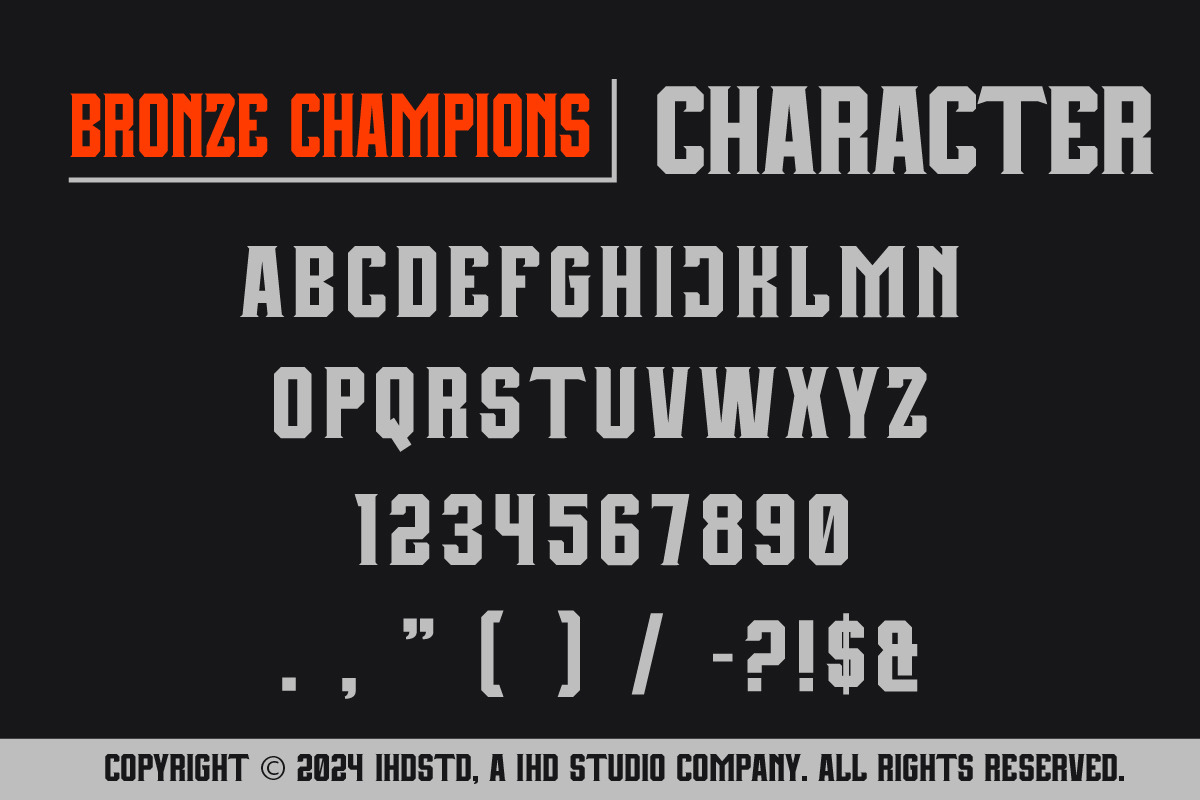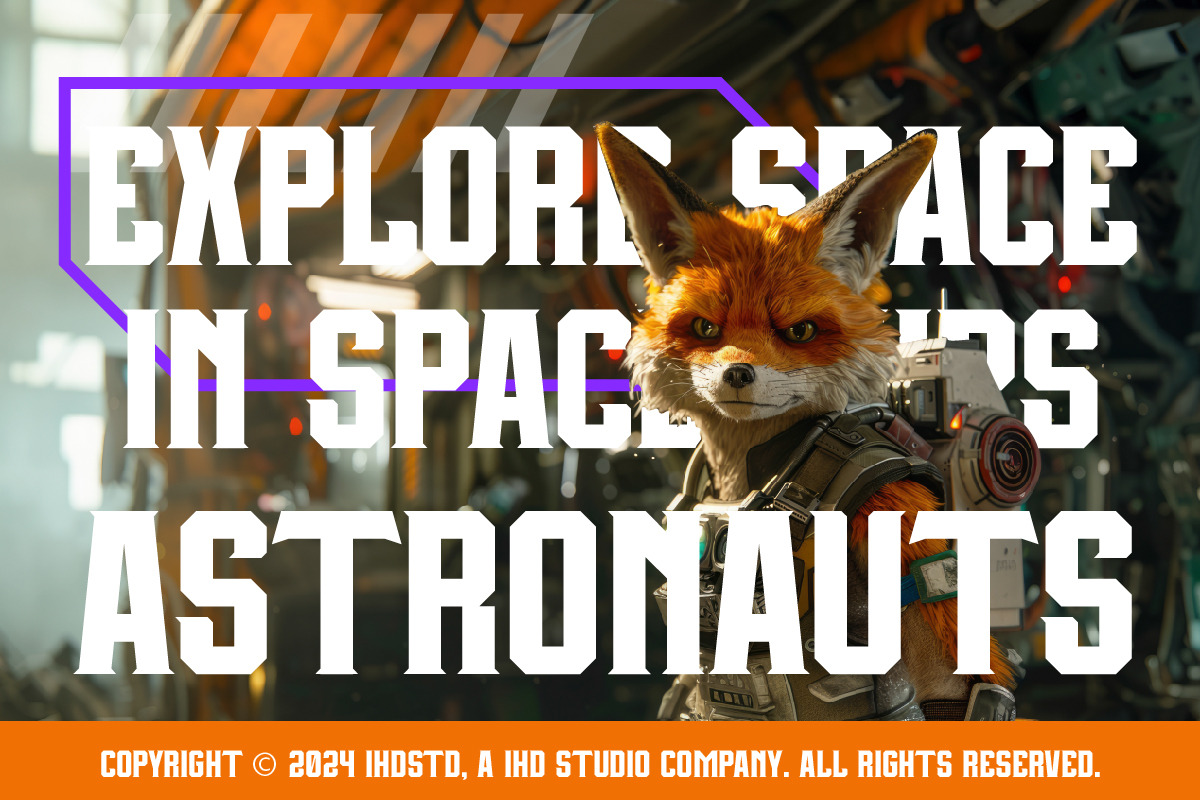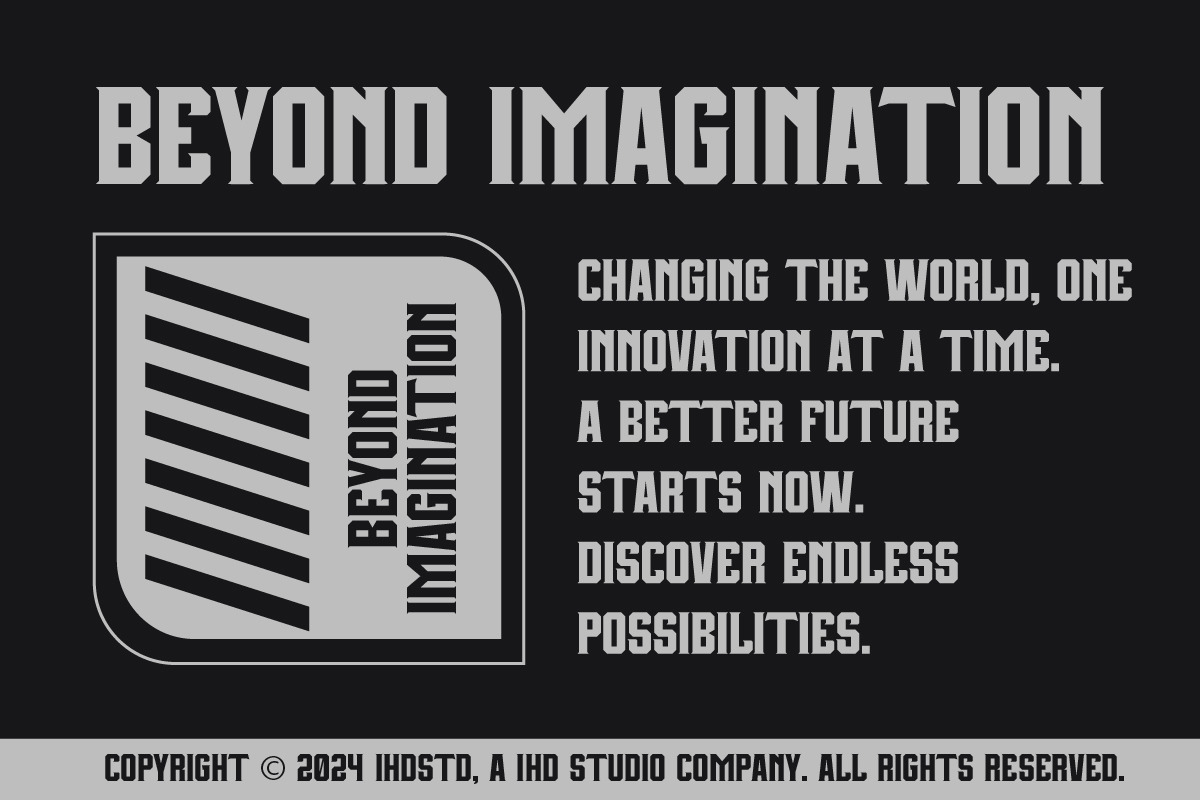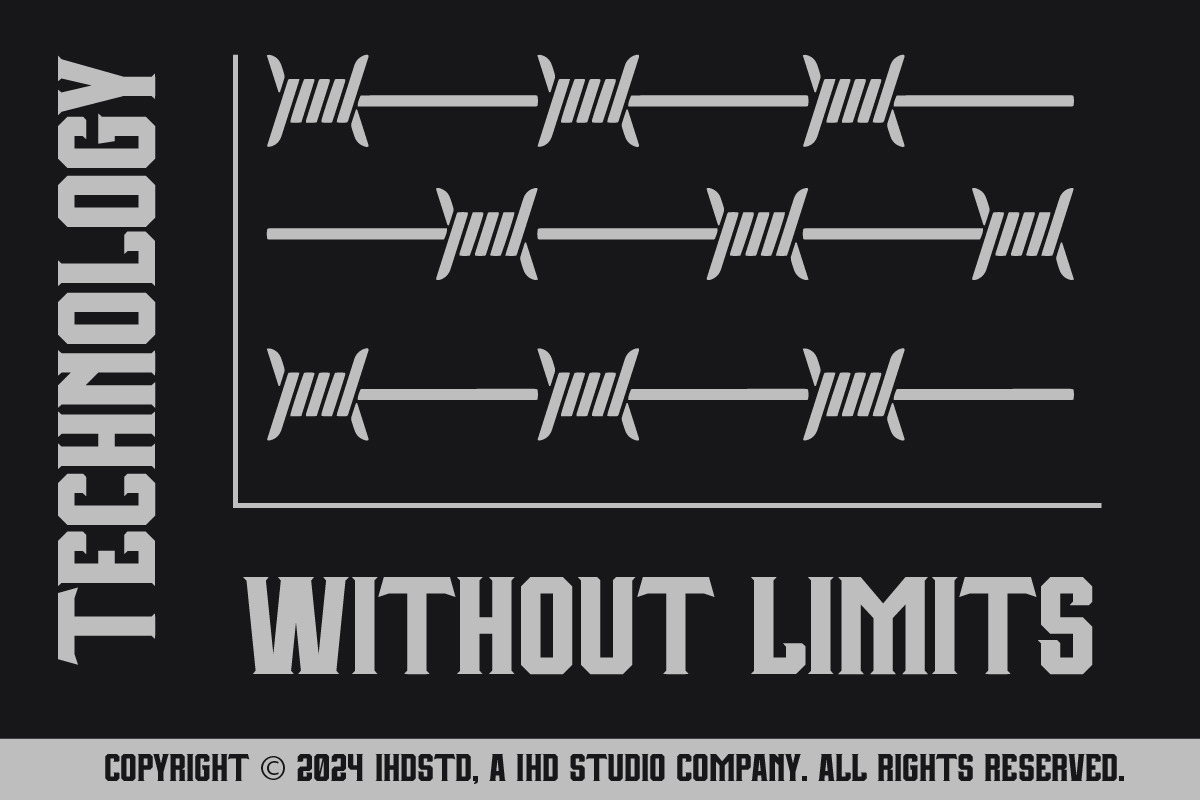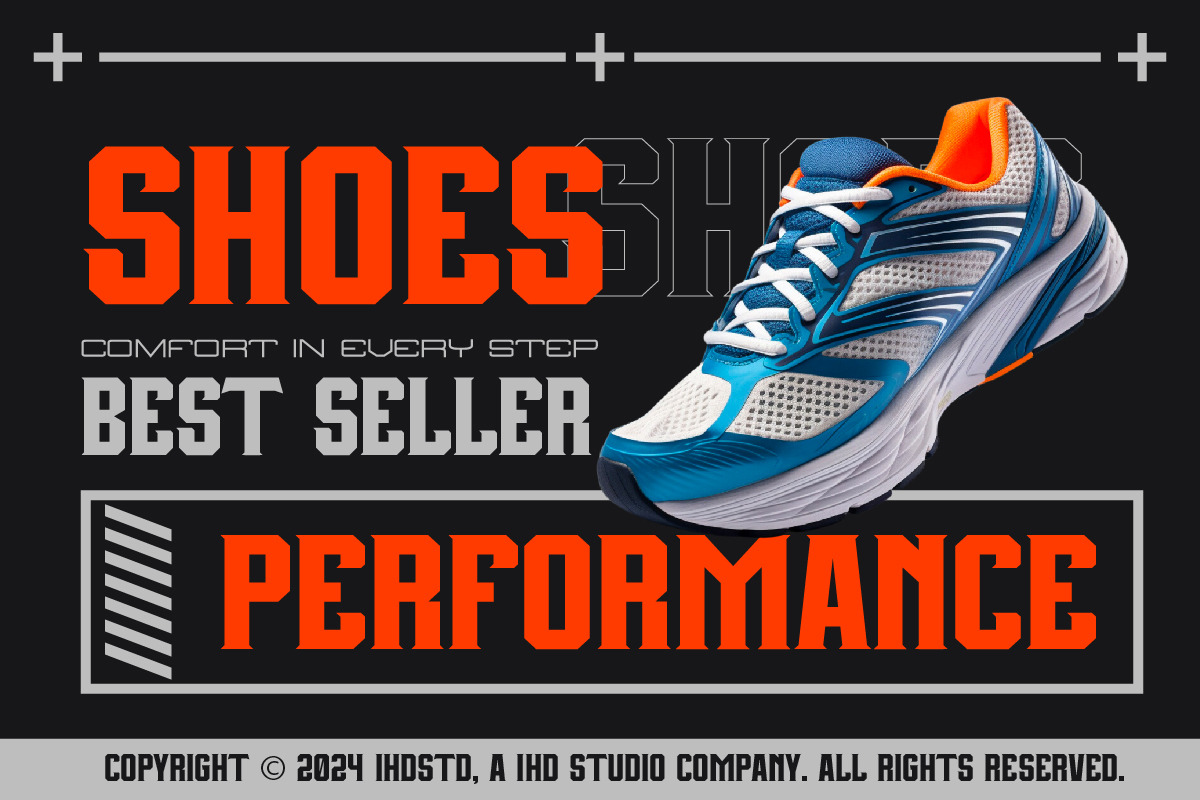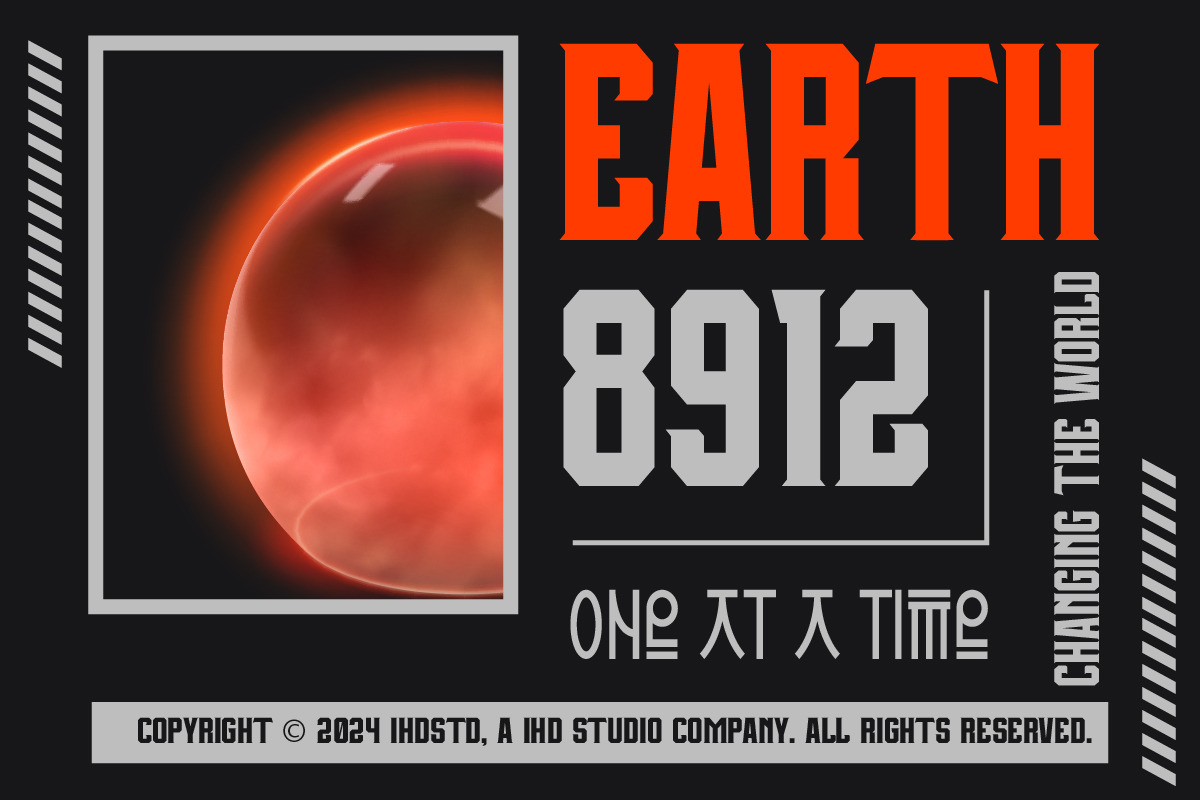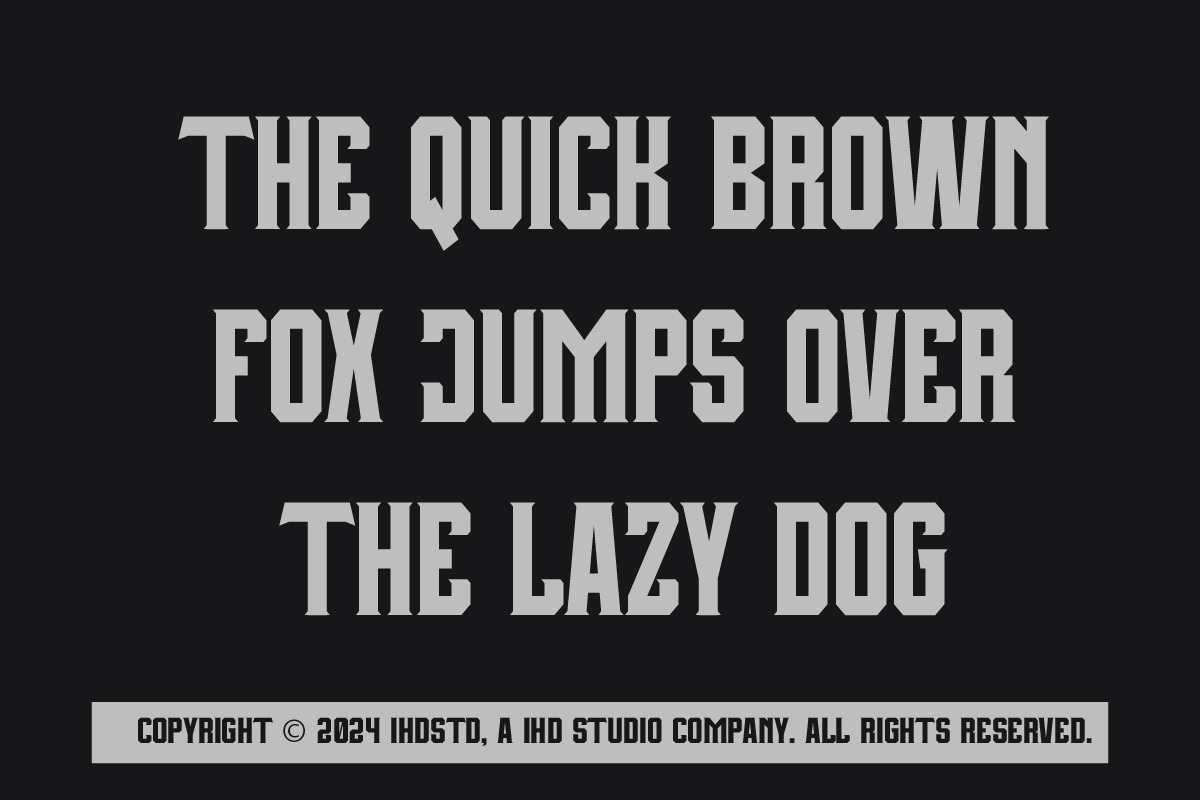
Bronze Champions Futuristic Display
Bronze Champions Futuristic Display Font is our new item suitable for your Posters.
Great for Logo, Poster, Sticker, Jerseys, Invitation Card, Brochure, etc.